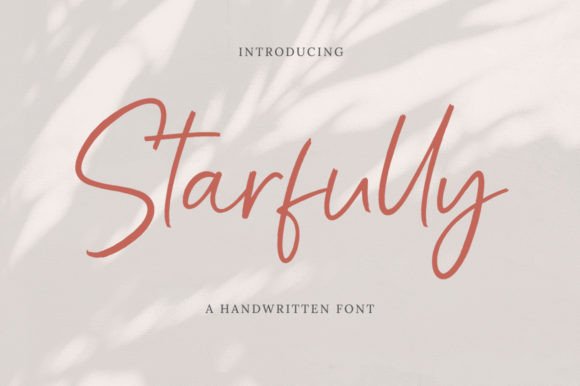
Journey into the enchanting realm of Starfully Font, where creativity and expression intertwine. Discover a font that captivates the essence of written art, a testament to the beauty of cursive J's. With its meticulously crafted characters and intricate details, Starfully Font ushers you into a world of boundless imagination.
Designed by the visionary artists at Seagulls Creative, Starfully Font embodies the essence of elegance and sophistication. Each letter, lovingly crafted with a touch of texture, dances across the page like a ballerina, leaving a trail of artistic brilliance. Its unique curves and flourishes evoke a sense of nostalgia, reminiscent of handwritten love letters and timeless tales.
Unleash your creativity with Starfully Font, a versatile companion for your design endeavors. Whether you're crafting captivating logos, designing stunning invitations, or creating eye-catching social media posts, Starfully Font will elevate your projects to new heights. Its ability to seamlessly blend with various serif fonts opens up a world of possibilities, allowing you to weave a tapestry of visual harmony.
Step into the world of Starfully Font and experience a symphony of creative expression. Dive into a world where your words take on a life of their own, flowing effortlessly across the page with grace and elegance. Let Starfully Font be your guide as you embark on a journey of artistic exploration, leaving a lasting impression on all who behold your creations.